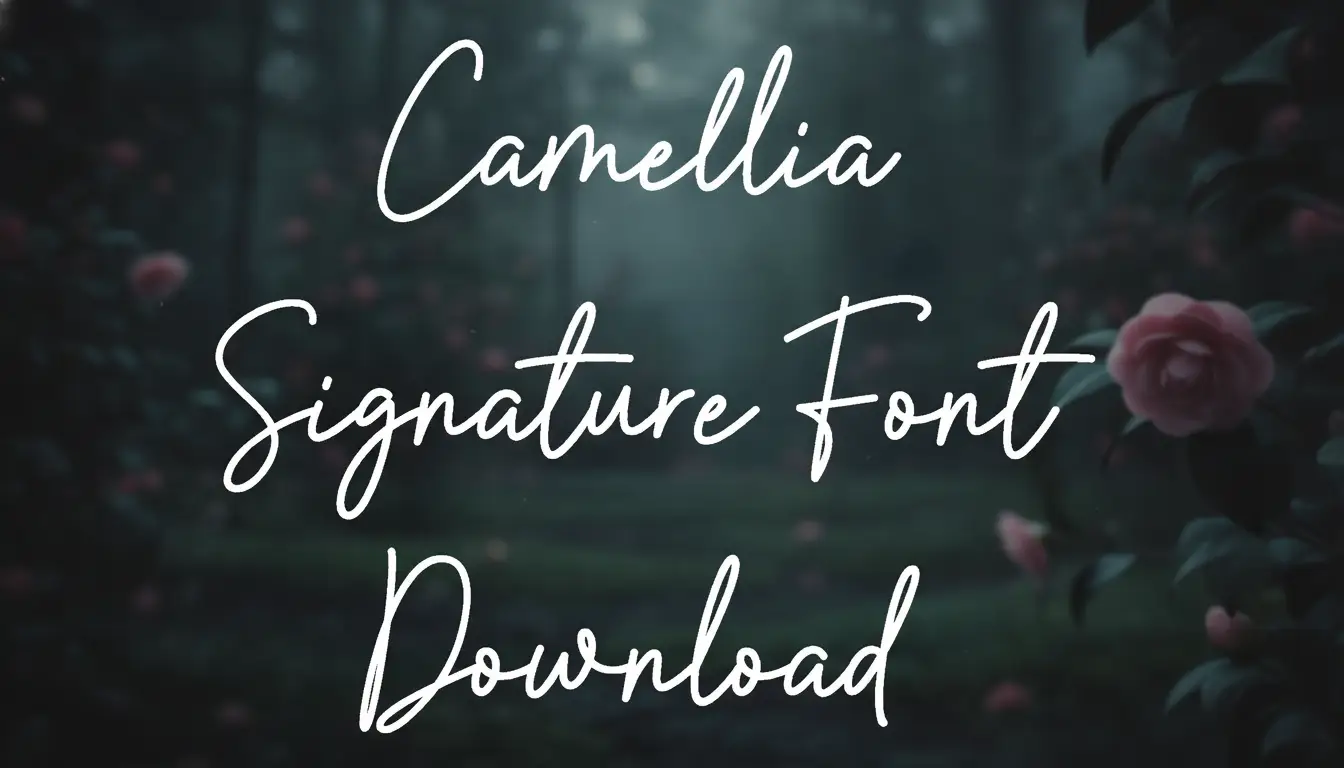
Camellia Signature Font
Camellia Signature is a script font made by Picky Labs Studio. It has that hand-lettered, flowing feel people look for when regular type seems too stiff. You can download it for free and test it with your own words in the preview above.
What You Can Type With Camellia Signature
With complete upper and lowercase letters and all ten digits, Camellia Signature is ready for real wording, not just a single headline. Everyday marks like &, !, ? and @ are there too. There are no accented letters like é or ñ, so it's best kept to English text.
Where Camellia Signature Works Best
Designers usually reach for fonts like Camellia Signature when they're making wedding invitations, logos and signature-style headings. Script fonts read best in short bursts, so keep it to names, titles and one-line quotes. Skip all caps: script capitals are drawn to start a word, not to fill one.
Does Camellia Signature support accented letters?
No. Camellia Signature has no accented letters such as é, ñ or ü, so it's best for English text.